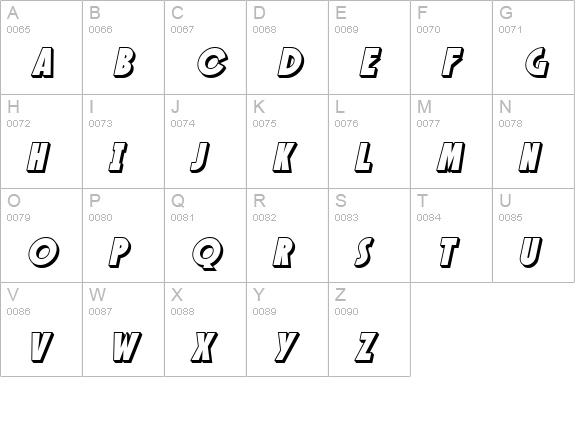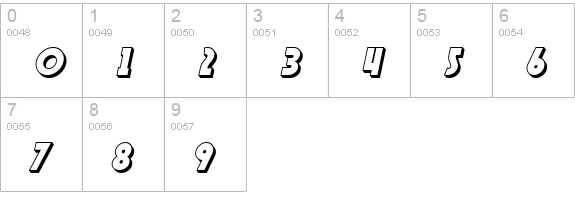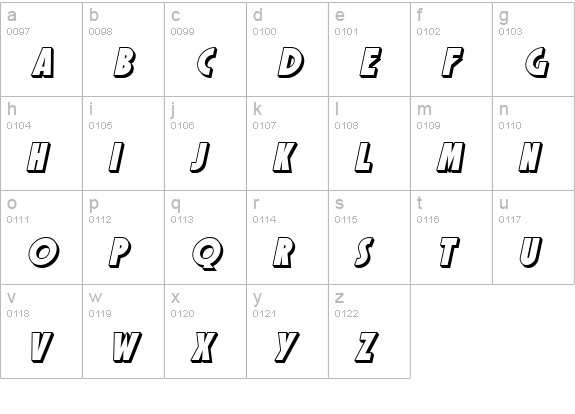
SF Speakeasy Shaded Oblique Font Details
SF Speakeasy Shaded Oblique is a distinctive, italic variant in the SF typeface family \xE2\x80\x94 well suited to design and typography projects.
Introducing SF Speakeasy Shaded Oblique, a captivating font that effortlessly combines the elegance of the Art Deco era with a touch of modern sophistication. This font is perfect for those seeking to add a hint of retro charm to their designs while maintaining a contemporary edge. With its stylish slanted letterforms and unique shading, SF Speakeasy Shaded Oblique exudes a sense of mystery and allure. Each character possesses a subtle tilt, creating a dynamic and visually engaging appearance that commands attention. The shading adds depth and dimension, further enhancing the font's captivating allure. SF Speakeasy Shaded Oblique is a versatile typeface that seamlessly adapts to various design projects. Whether you're creating eye-catching headlines, stylish logos, or elegant invitations, this font will effortlessly elevate your designs to new heights. What makes SF Speakeasy Shaded Oblique even more enticing is that it is freely available to download at FontsMarket.com. This means that you can enhance your creative projects without any cost or limitations. Embrace the freedom to explore your design possibilities and let SF Speakeasy Shaded Oblique become your go-to font for all your artistic endeavors. Download SF Speakeasy Shaded Oblique today and unleash your creativity with this captivating and freely accessible font. Elevate your designs, evoke a sense of nostalgia, and make a lasting impression with the perfect blend of vintage allure and contemporary style.